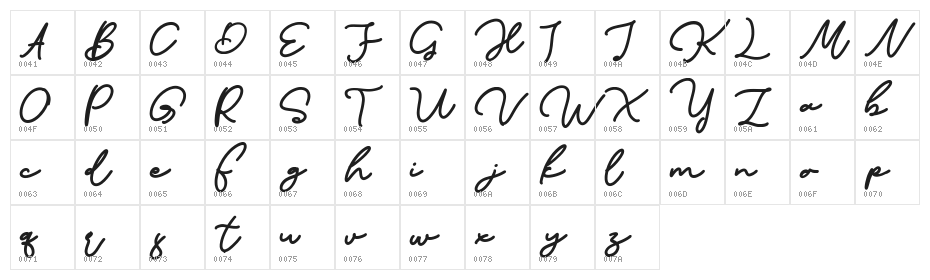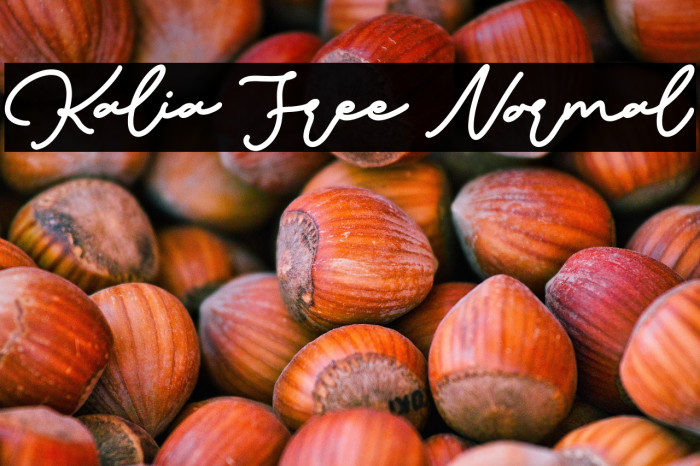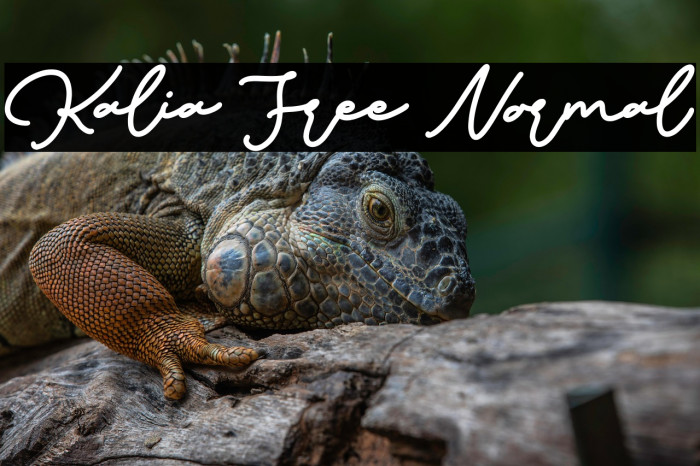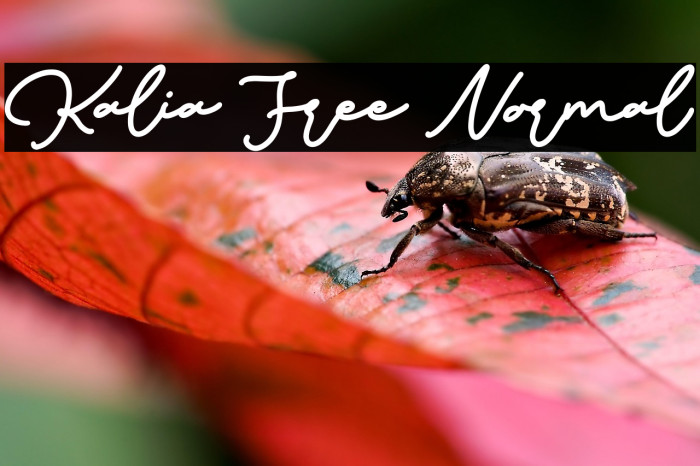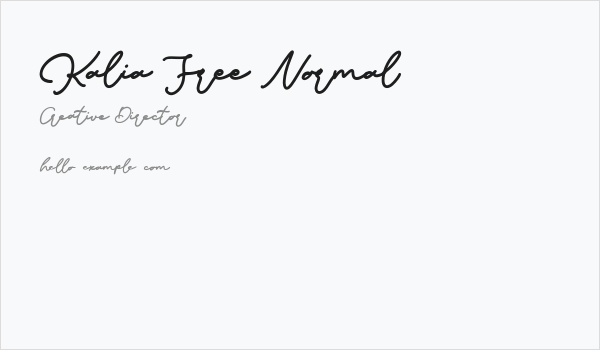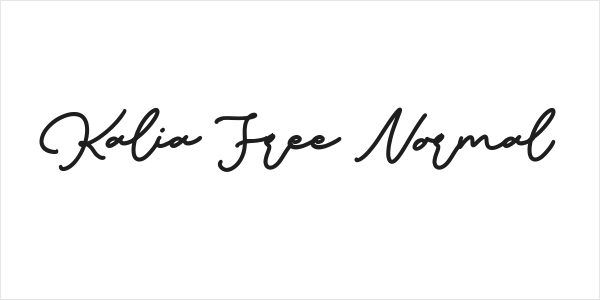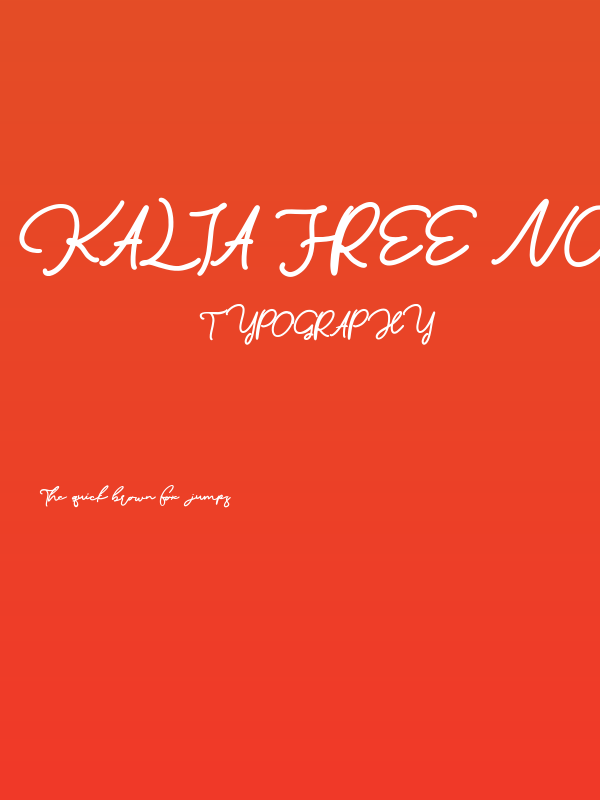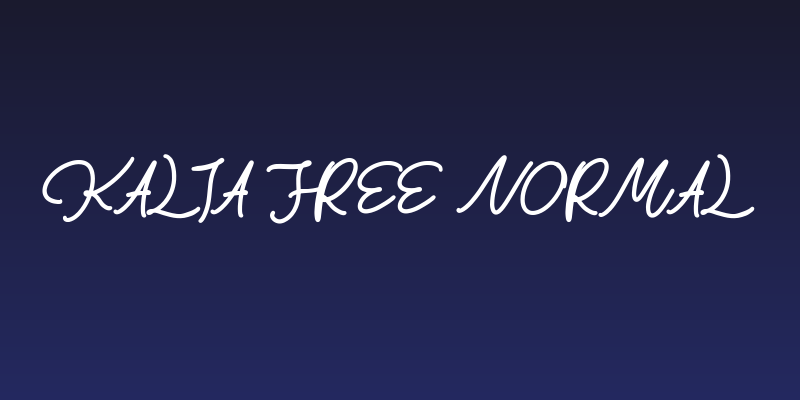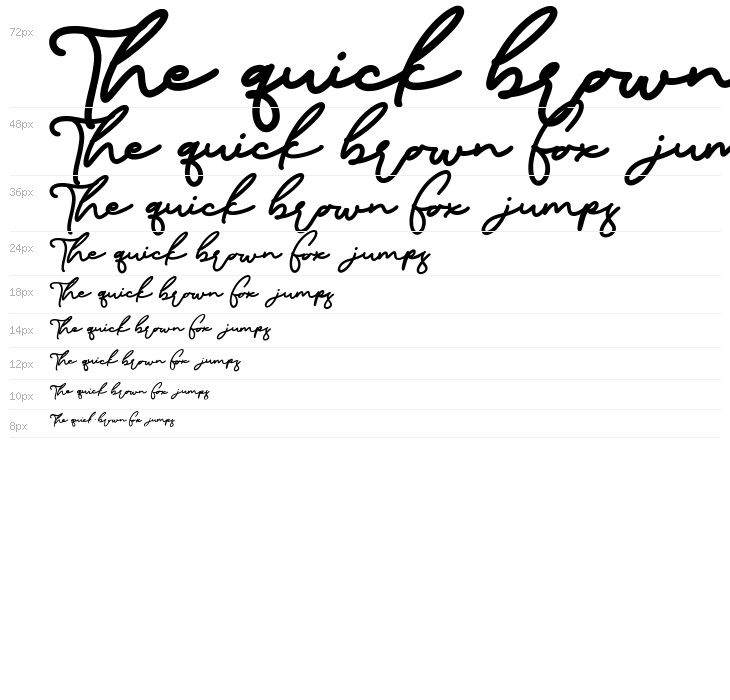
Kalia Free Normal Font
Kalia Free Normal Description
This font features a flowing, cursive style that mimics elegant handwriting. The characters are interconnected, creating a seamless and fluid appearance. The uppercase letters are slightly more ornate, with loops and swirls that add a touch of sophistication. The lowercase letters maintain a consistent slant, enhancing the script's natural and effortless look. The numbers and special characters are designed to match the overall aesthetic, ensuring uniformity across all text. This font is perfect for projects that require a personal, handwritten touch, such as invitations, greeting cards, or branding materials.
| Overall Style | Elegant, Handwritten |
| Use Case | Logos, Invitations, Decorative text |
| Proposed Projects | Ideal for wedding invitations, personal branding, greeting cards, and decorative signage. |